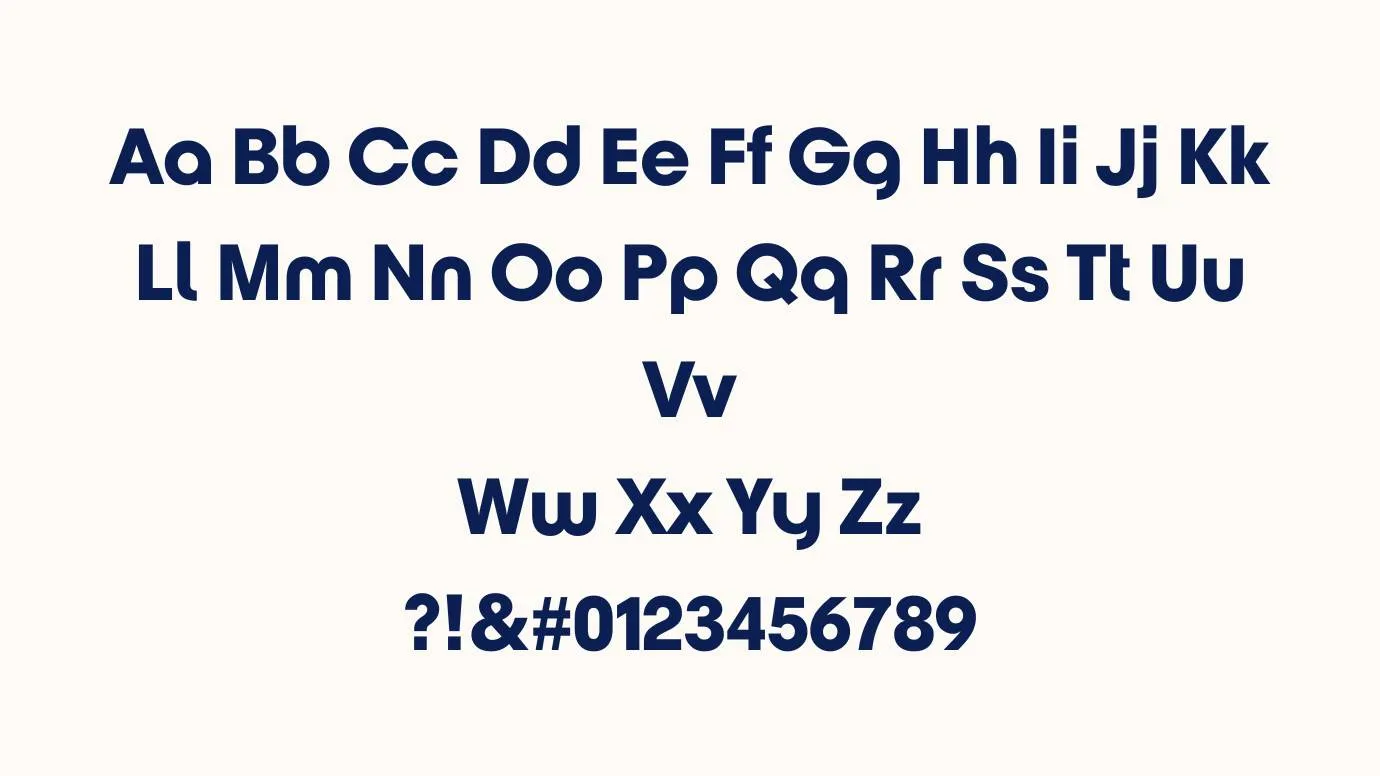
ABC Logo Font is a very unique typeface it is a logo font which is launched by American Broadcast Company which is an American-based company. This amazing company’s headquarters was in New York City in 1960 owned by the Walt Disney Company.
This interesting highly readable typeface uses Futura font which was designed by Paul Renner. It is a very famous font with so many different weights and styles.